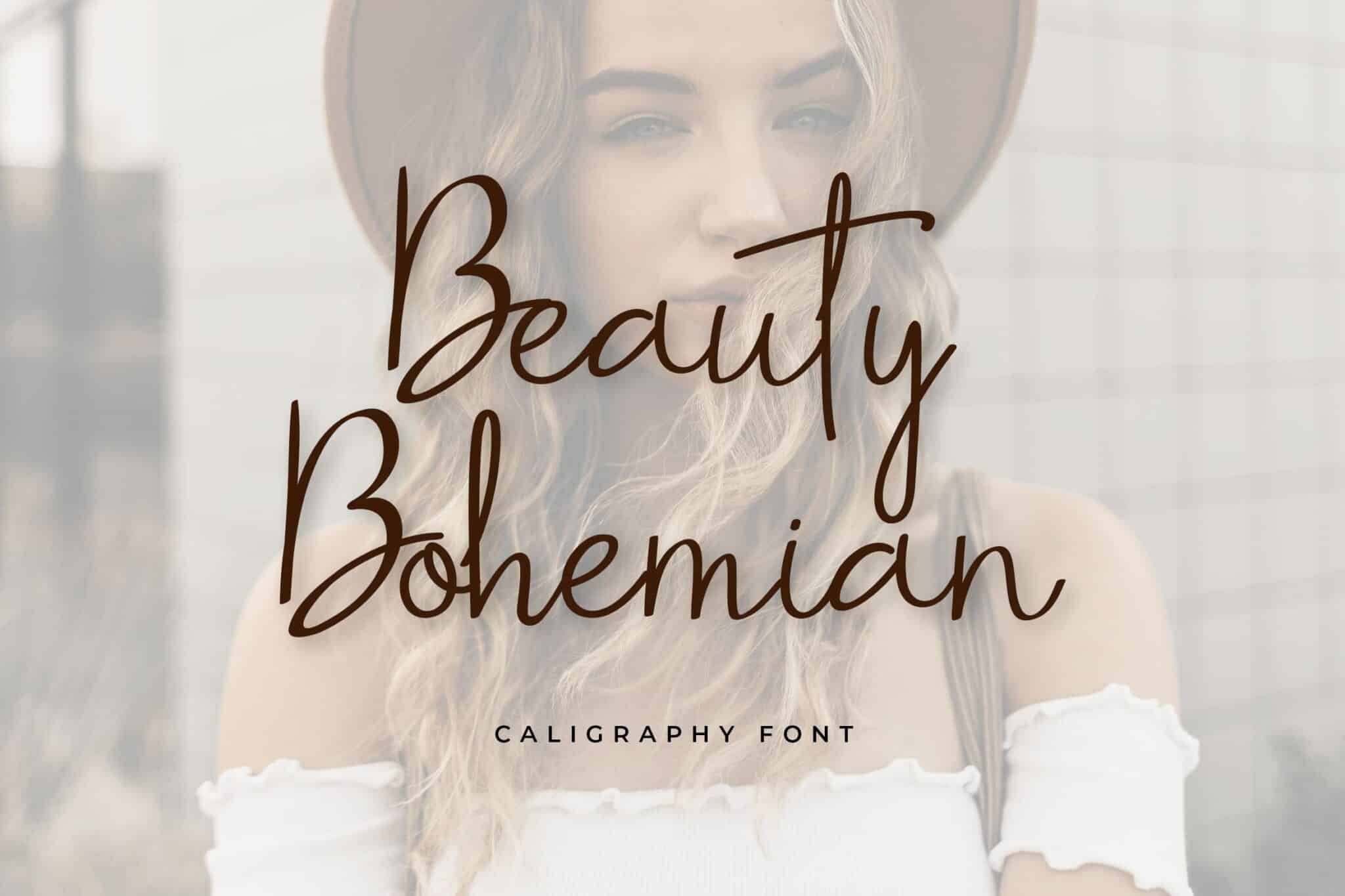
10 Best Handwritten Font for Design Graphic
When it comes to applying our handwriting in graphic design (handwritten font style, handwritten print font), the truth is that even though many of us are confident in our ability to write legibly, we might as well have the penmanship of a physician. When developing a brand identity or a logo for a new client, this option is not precisely the most suitable one to go with.
To be of assistance, we felt that sharing our recommendations for a good handwritten font for graphic design, logos, and branding would be a good way to give your wrist a break from the effort of trying to perfect your talents. Because of these options, you won’t need to continue practicing and may instead focus on finding new clients and finding work.
However, before we get started, it would be helpful to understand better the term “handwritten font.”
What is handwritten font?
The appearance of the nice handwritten font is intended to mimic writing done by hand with an instrument such as a pen or marker. This typeface has various styles, reflecting the small changes and variations of actual handwriting. The range of styles can be rather extensive.
The difference between script fonts and handwritten fonts is that script fonts tend to be more decorative or even have a touch of calligraphy. In contrast, the handwritten font looks more like the penmanship written in a letter. However, some people will compare the handwritten font to the script typeface.
10 Handwritten Font
1. Serendipity Handwritten Font
Serendipity Handwritten Font
This is an excellent choice if you need a brush typeface with a lot of texture. As a result of its cutting-edge aesthetic, it may be used for a wide variety of purposes. It includes but is not limited to billboards, campaigns, magazines, small-scale social events, and more.
Apply it everywhere you believe a genuine presentation is essential, including clothing projects, logo design, invites, and more. This handwritten font features lowercase and uppercase letters. So you’ll have plenty to do with it. For modern layouts, this is among the greatest handwritten fonts available.
2. Black Fold Script Handwritten Font
Black Fold Handwritten Font
This aesthetic font is inspired by vintage advertisements and features thick lines and darkened spaces between letters. It has a real sharpie look. The aesthetics and appeals of this typeface are sure to captivate the attention of anyone interested in creating an atmosphere reminiscent of the 1950s. On this list, Black Fold stands out as one of the more memorable typefaces because it does a good job of preserving a font from a certain era.
3. Beach Front Script Handwritten Font
Beach Front Handwritten Font
This is another handwritten font that can be found on this list. It has a genuine feel to it. This typeface is easy to read, has a sense of humor, and is not too bulky, making it ideal for use in personal letters, invitations, and greeting cards. Beach Front is an aesthetic that is both personal and approachable, and it is available in both upper and lower case forms.
4. Gunman Handwritten Font
Gunman Handwritten Font
The handwritten font known as Gunman is chic and uses lengthy strokes throughout the letters. This font looks similar to text that has been scrawled with a sharpie. It is a standard choice for graphic designers and other creatives who want their work to have an air of familiarity and a sense of individuality.
5. Dento Viola
Dento Viola Handwritten Font
As its name aptly suggests, Dento Viola is yet another textured brush font that can be found on this list. Its letters have the appearance of having been drawn with a wet brush. Dento Viola is a beautiful sight to behold. It is ideal for art-related projects and campaigns that require elegant strokes and thin. Not only that, but also cursive lines since it lends an air of authenticity and artistry to your written work.
6. Absolute Nature Handwritten Script Font
good handwritten font - Absolute Nature Handwritten Font
Absolute Nature Handwritten Font
The Absolute Nature is a sleek-looking handwritten font that will pack a punch due to its simple and elegant design and various modification options. This font features elongated strokes and curves on every edge. Also, it works wonderfully for various designs, particularly motivational sayings or phrases sure to grab attention.
7. Beauty Bohemian
Beauty Bohemian Handwritten Font
This is a handwritten font styled like a signature that UICreative made. It was inspired by the life, truths, and wonders that come with it. The set works well in Photoshop, InDesign, and Adobe Illustrator. The handwritten font is a great way to add a touch of class and sophistication to your work and make it stand out.